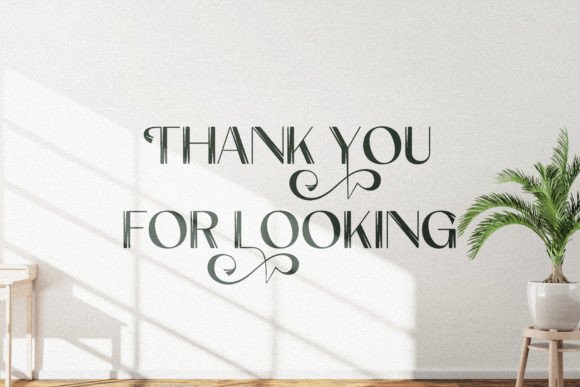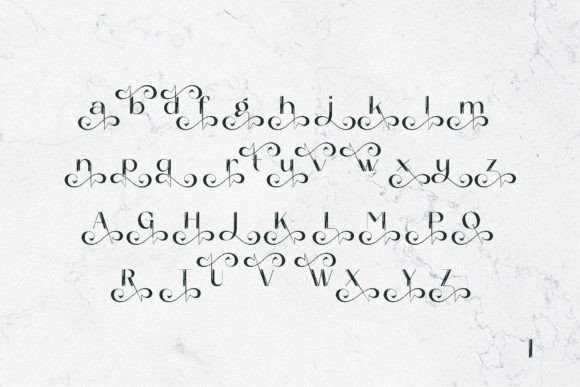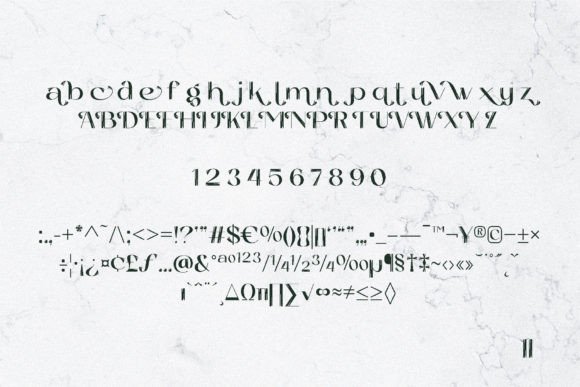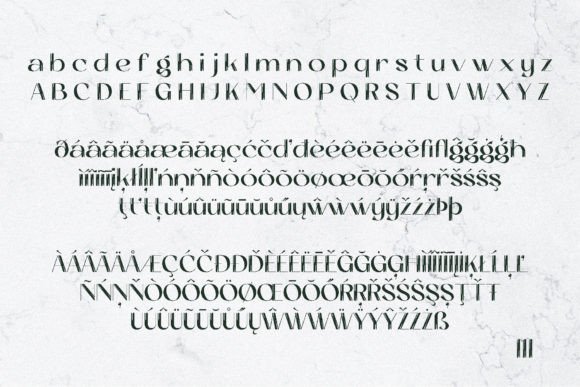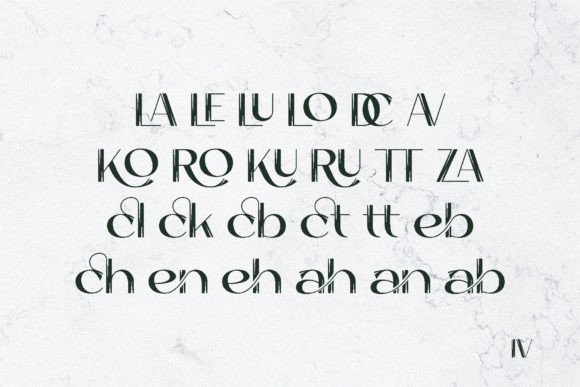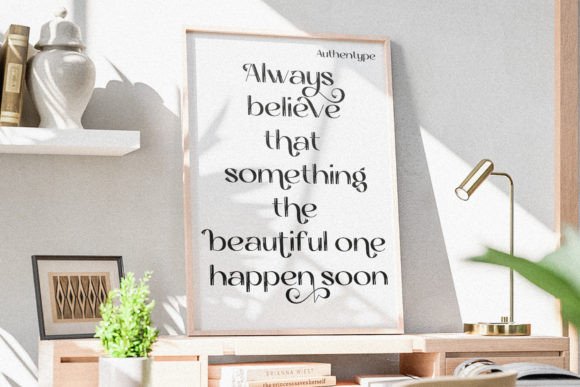
Introducing Bugante Font: Elevate Your Designs with Elegance
In the world of typography, fonts play a crucial role in conveying the message and aesthetic of a design project. For designers and crafters seeking a unique and elegant serif font, Bugante is an exceptional choice. Inspired by the exquisite shape of the Bugante flower, this font is crafted to add a touch of sophistication to various design projects.
The Bugante Flower: A Source of Inspiration
The Bugante flower, known for its intricate details and distinctive shape, has been the muse behind the Bugante font. The font’s creator aimed to capture the flower’s elegance and translate it into a typographic masterpiece. The result is a serif font that exudes refinement and poise, making it perfect for designs that require a touch of luxury.
Characteristics of Bugante Font
Bugante is an exquisitely crafted serif font, characterized by its:
- Intricate details: The font features delicate serifs and ornate details, reminiscent of the Bugante flower’s intricate shape.
- Elegant lines: The font’s lines are smooth and flowing, giving it a sophisticated and refined appearance.
- Classic feel: Bugante’s serif design gives it a timeless, classic feel that works well for a wide range of design projects.
Uses of Bugante Font
Bugante’s versatility makes it a popular choice for various design projects, including:
- Logo design: Create a lasting impression with a logo that features the elegant Bugante font.
- Web design: Enhance your website’s typography with Bugante, adding a touch of sophistication to your online presence.
- Print design: Use Bugante in brochures, posters, and business cards to create a lasting impression.
- Packaging design: Add a touch of elegance to your product packaging with Bugante.
Why Choose Bugante Font?
With so many fonts available, why choose Bugante? Here are a few reasons:
- Unique design: Bugante’s inspiration from the Bugante flower makes it a one-of-a-kind font that will set your designs apart.
- Elegant appearance: The font’s refined lines and intricate details give it an air of sophistication.
- Versatility: Bugante works well for a wide range of design projects, from logos to websites and print materials.
Tips for Using Bugante Font
To get the most out of Bugante, consider the following tips:
- Pair with a sans-serif font: Combine Bugante with a sans-serif font for a striking contrast.
- Experiment with sizes: Use Bugante in various sizes to create visual hierarchy and emphasis.
- Play with colors: Try Bugante with different colors to find the perfect match for your design.
Bugante font is a masterpiece of typography, inspired by the exquisite Bugante flower. Its elegant design, intricate details, and versatility make it an excellent choice for designers and crafters seeking to elevate their designs. Whether you’re creating a logo, website, or print material, Bugante is sure to impress. With its unique character and sophisticated appearance, Bugante font is a valuable addition to any design project.